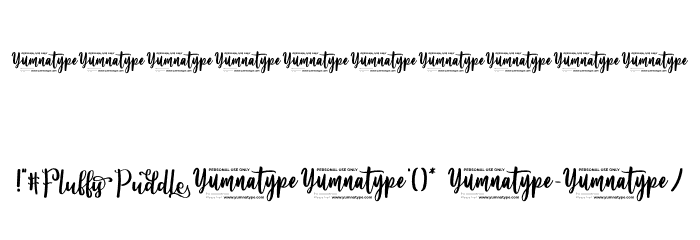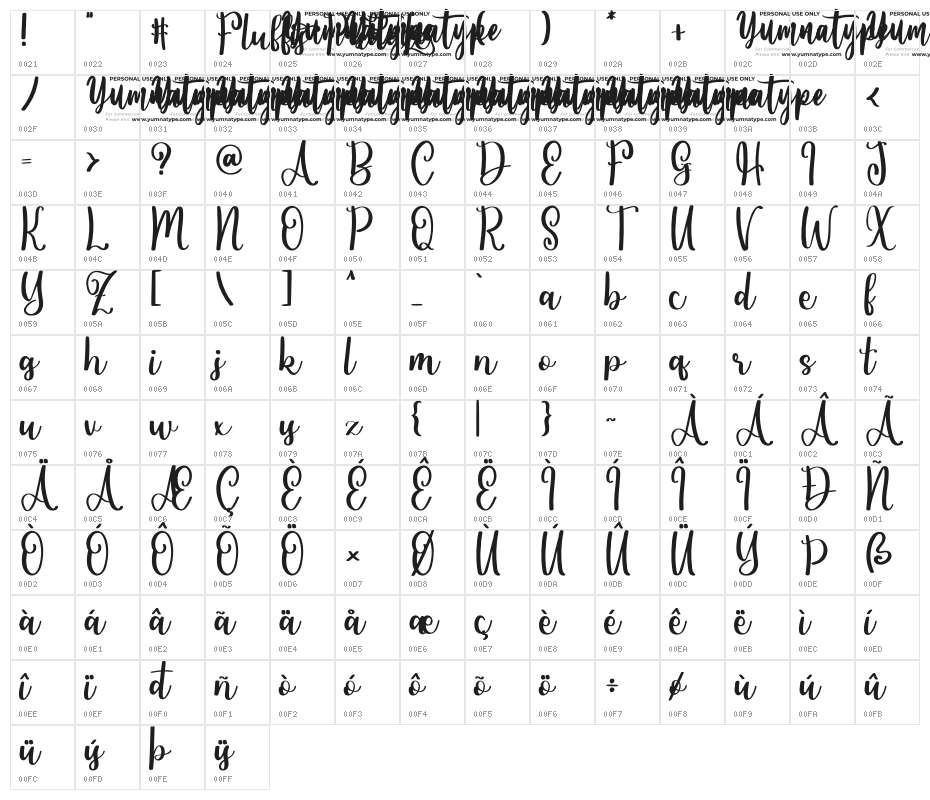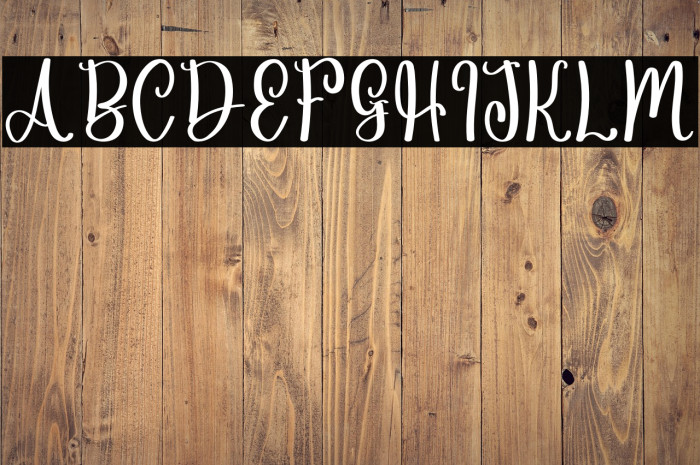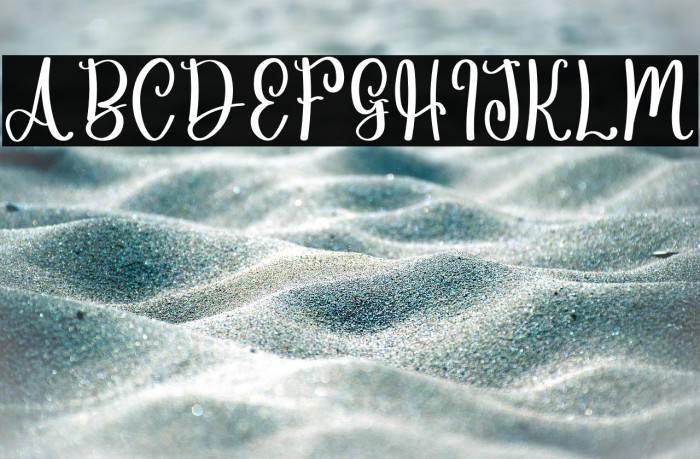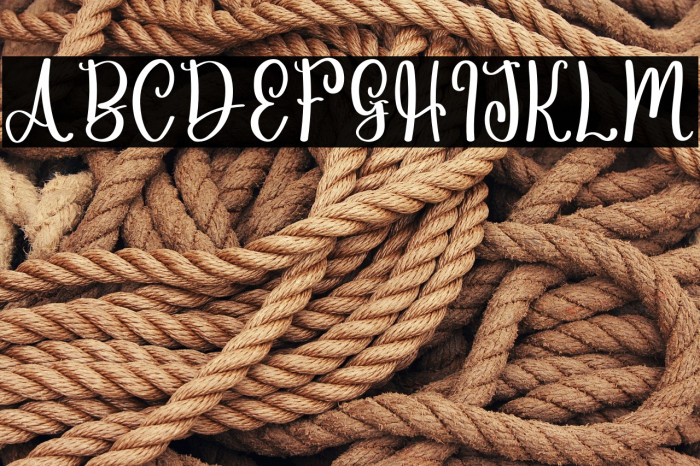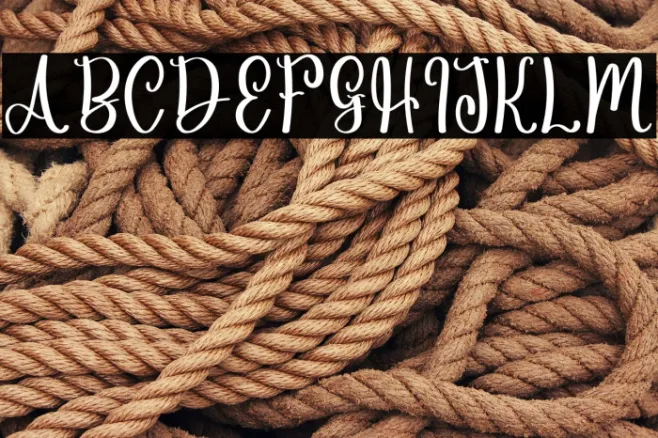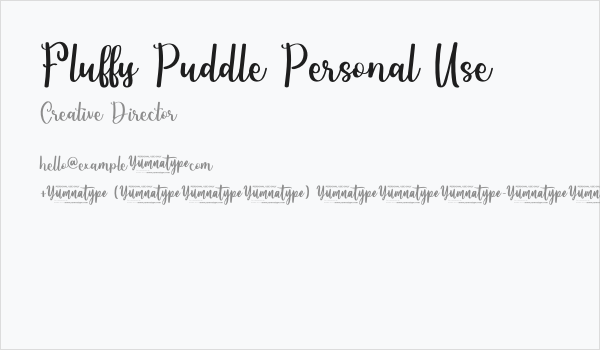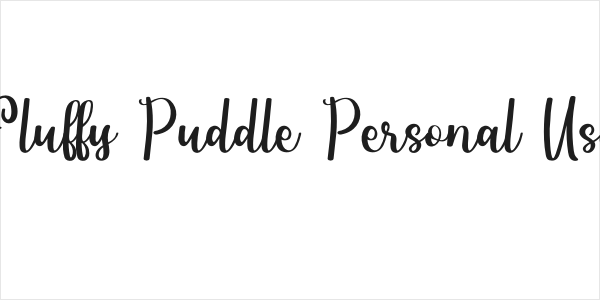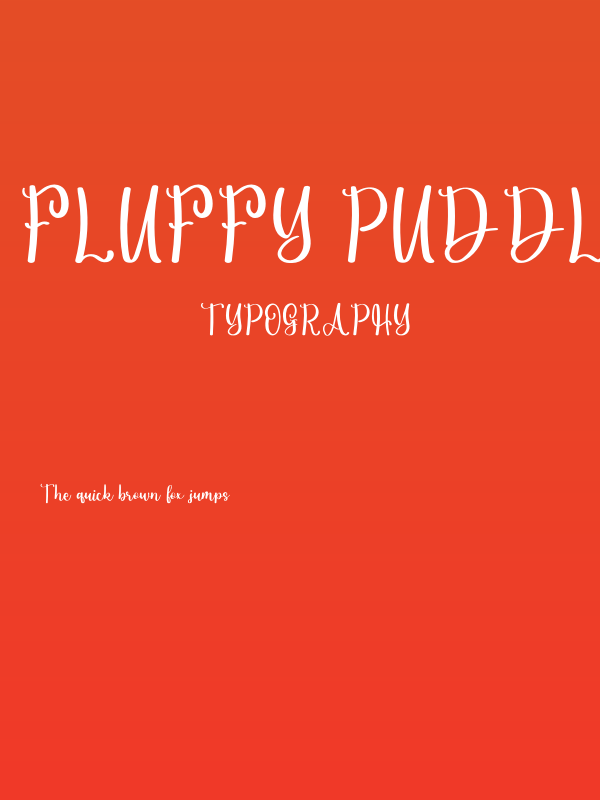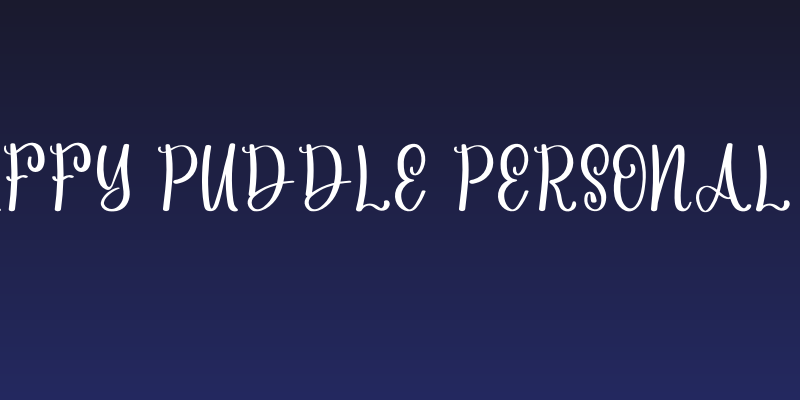
Fluffy Puddle Personal Use Font
Fluffy Puddle Personal Use Description
This font exudes a playful and whimsical charm, characterized by its flowing, cursive style. The uppercase letters are tall and elegant, with a slight slant that adds a dynamic feel. The lowercase letters are rounded and smooth, maintaining a consistent flow that enhances readability while still appearing artistic. The strokes are bold and confident, with a medium contrast that highlights the curves and loops of each character. This font is perfect for projects that require a touch of personality and flair, such as invitations, greeting cards, or branding materials. Its unique style makes it stand out, while its legibility ensures it remains functional for various uses.
| Proposed Projects | Ideal for invitations, greeting cards, branding, and creative projects. |